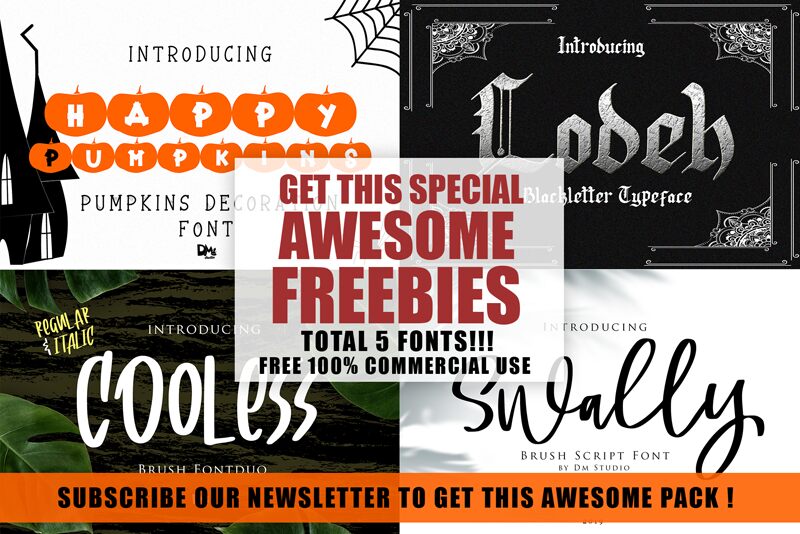
Lodeh, a gothic font by Dm Letter Studio, showcases the artistic brilliance of Dimas Prasetyo. With its medieval charm and semi-condensed width, Lodeh is the perfect choice for projects that demand a touch of mystique and elegance. Explore its versatility in creating enchanting book covers, spellbinding fantasy game titles, or captivating historical posters. This font will enhance your website's readability while captivating visitors with its unique flair. Let Lodeh transport your audience to a bygone era, making every project an extraordinary journey through time and imagination.